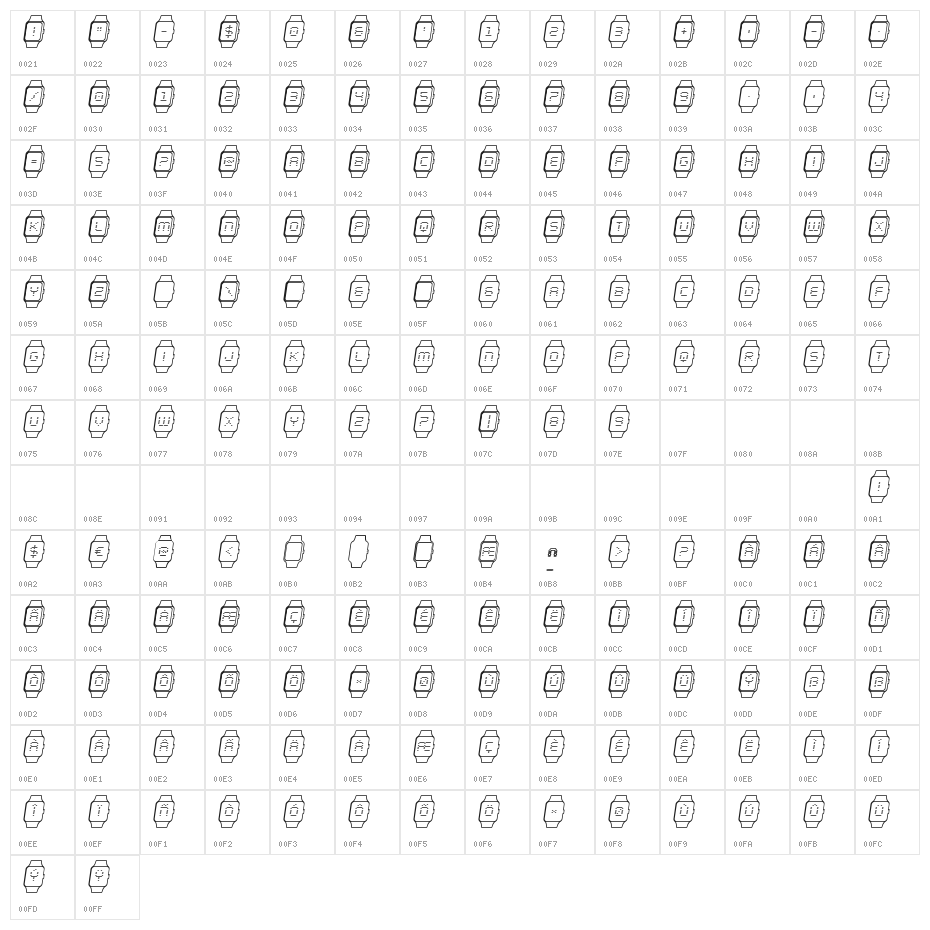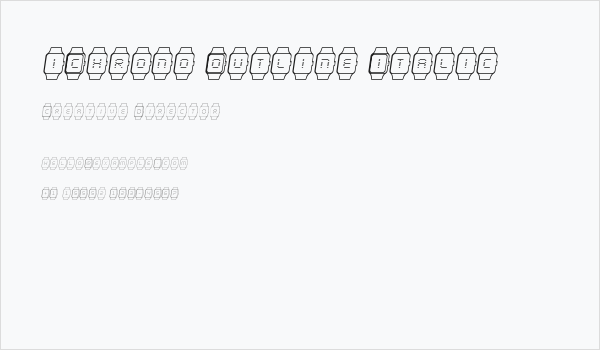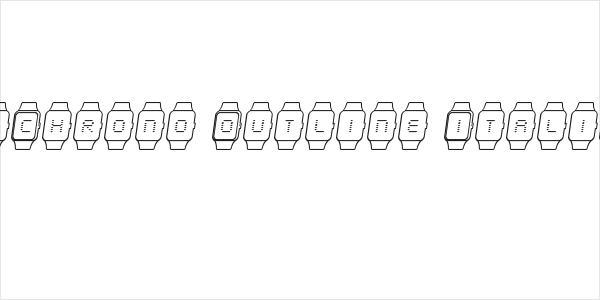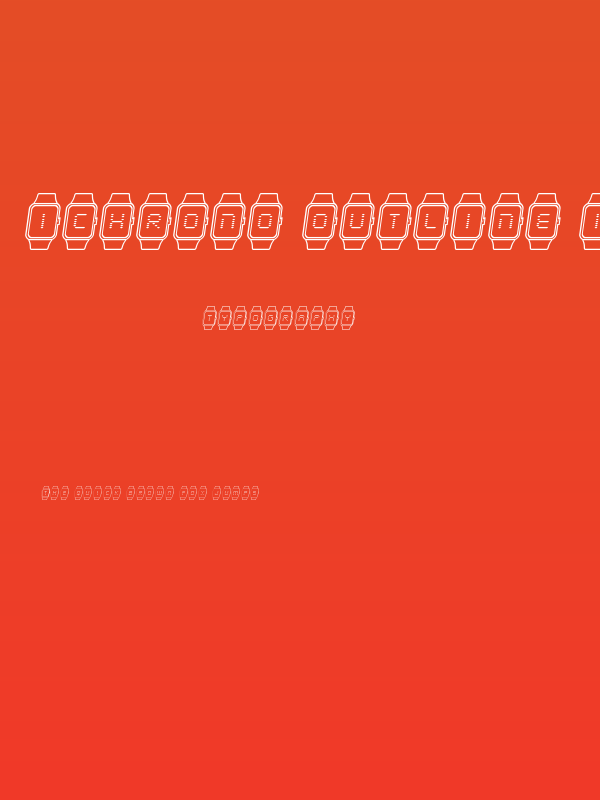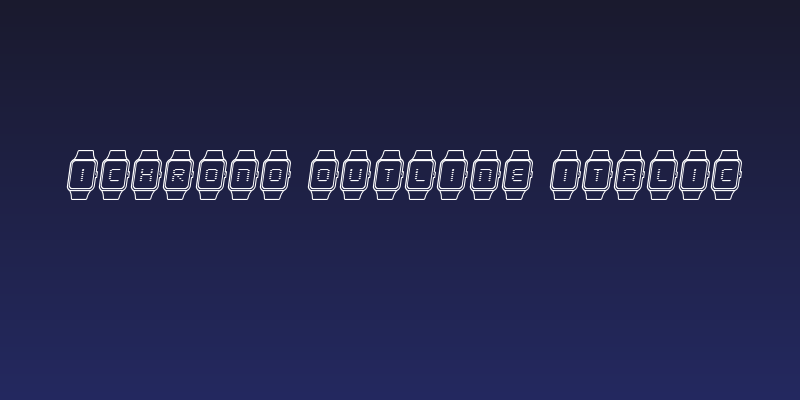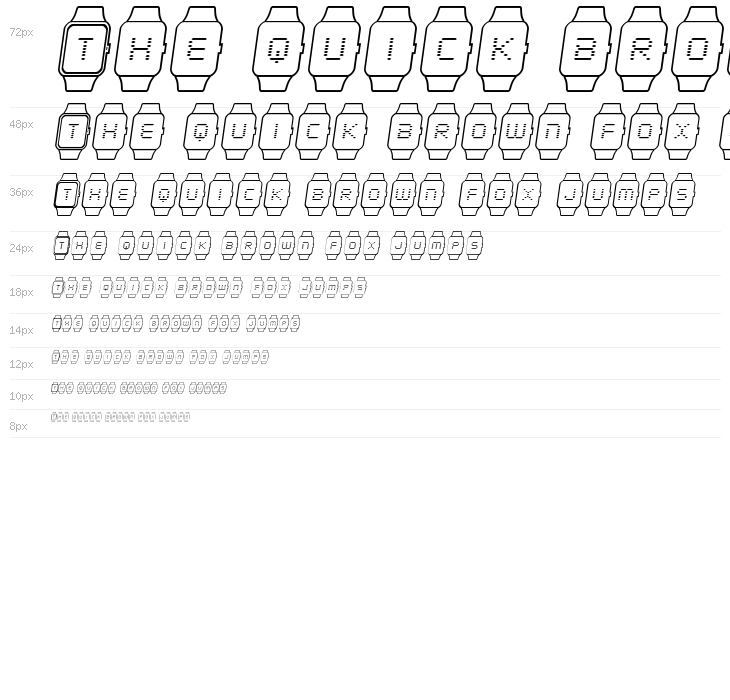
iChrono Outline Italic Font
iChrono Outline Italic Description
This unique font features characters displayed within the outline of a digital watch face, giving it a modern and tech-inspired aesthetic. The letters and numbers are formed using a series of dots, reminiscent of digital clock displays, which adds a futuristic and minimalist touch. The overall design is clean and structured, with each character fitting neatly within the watch outline, creating a cohesive and uniform appearance. The italic style adds a dynamic and forward-moving feel, enhancing its contemporary look. This font is perfect for projects that aim to convey a sense of technology, innovation, or time-related themes.